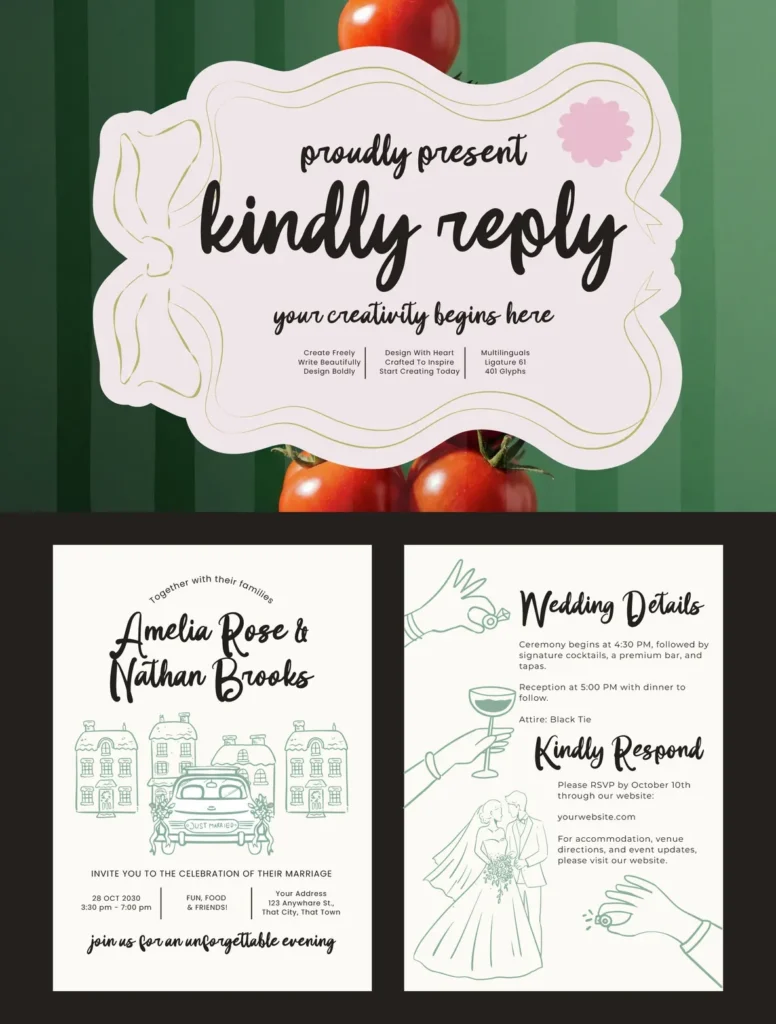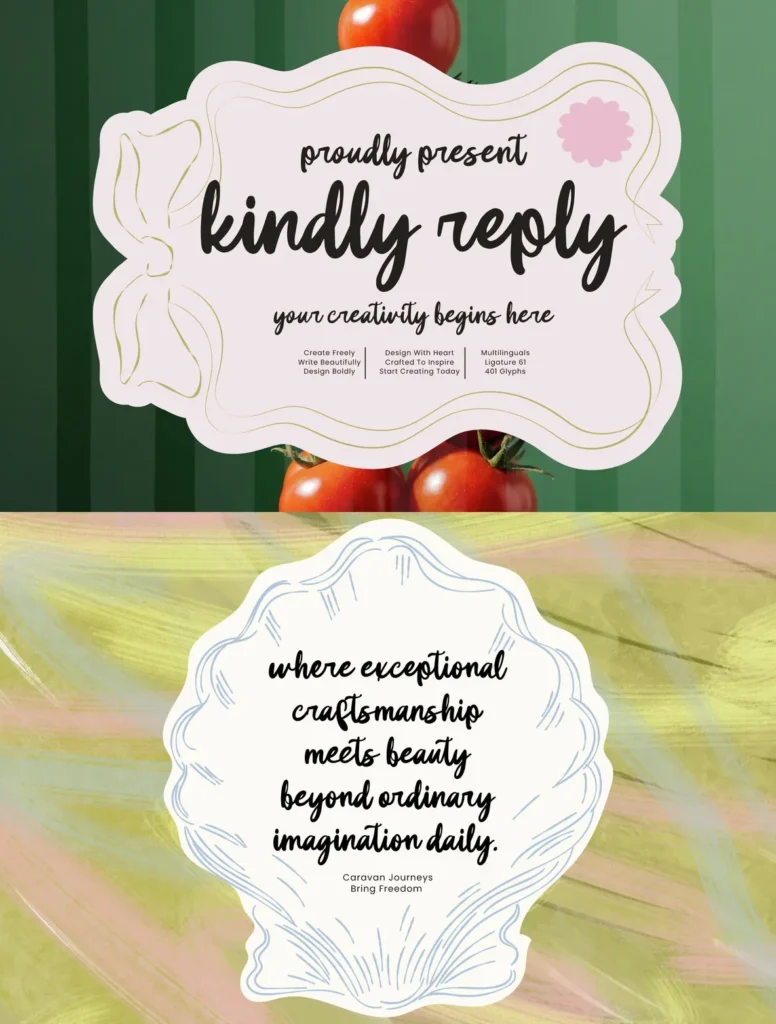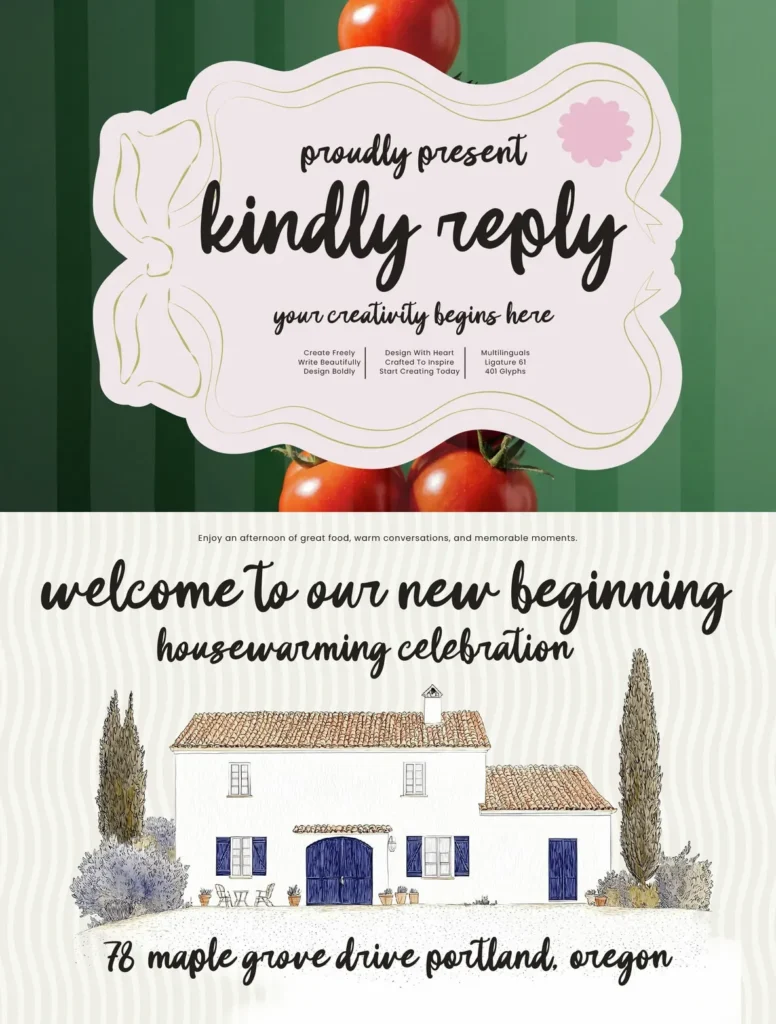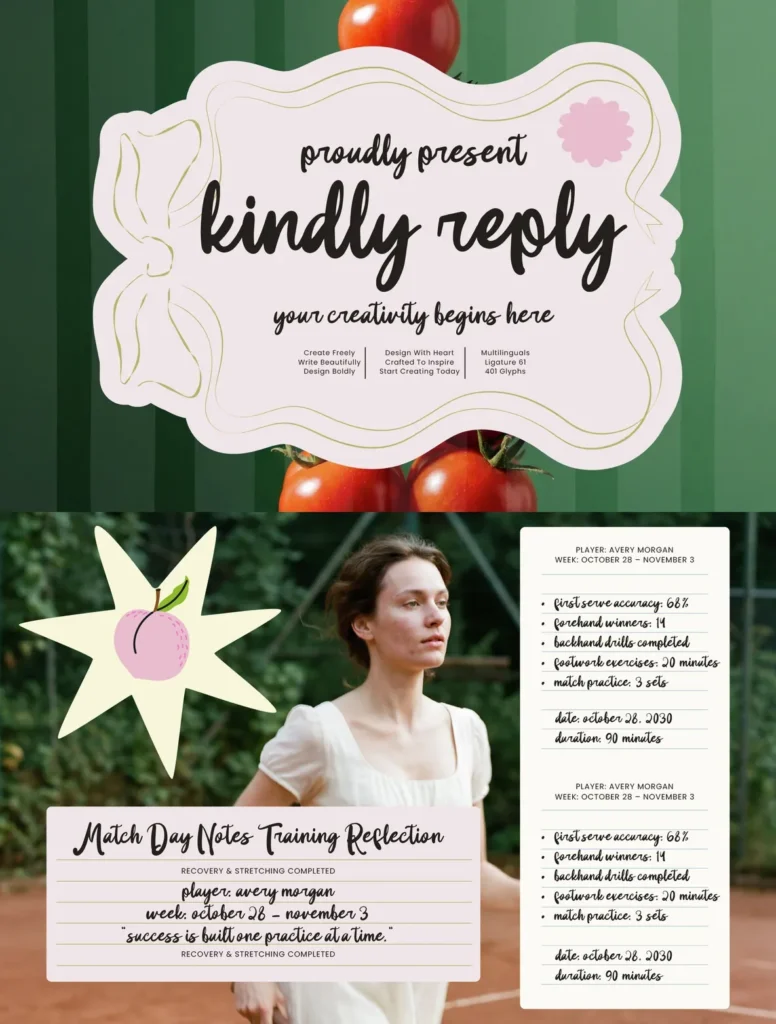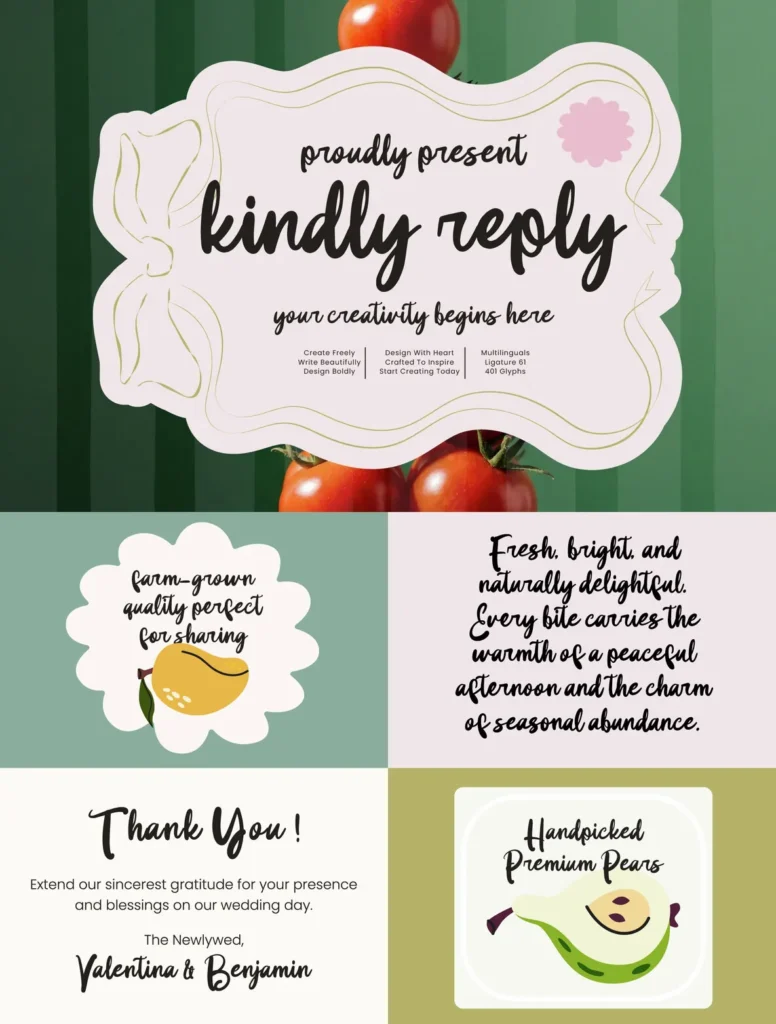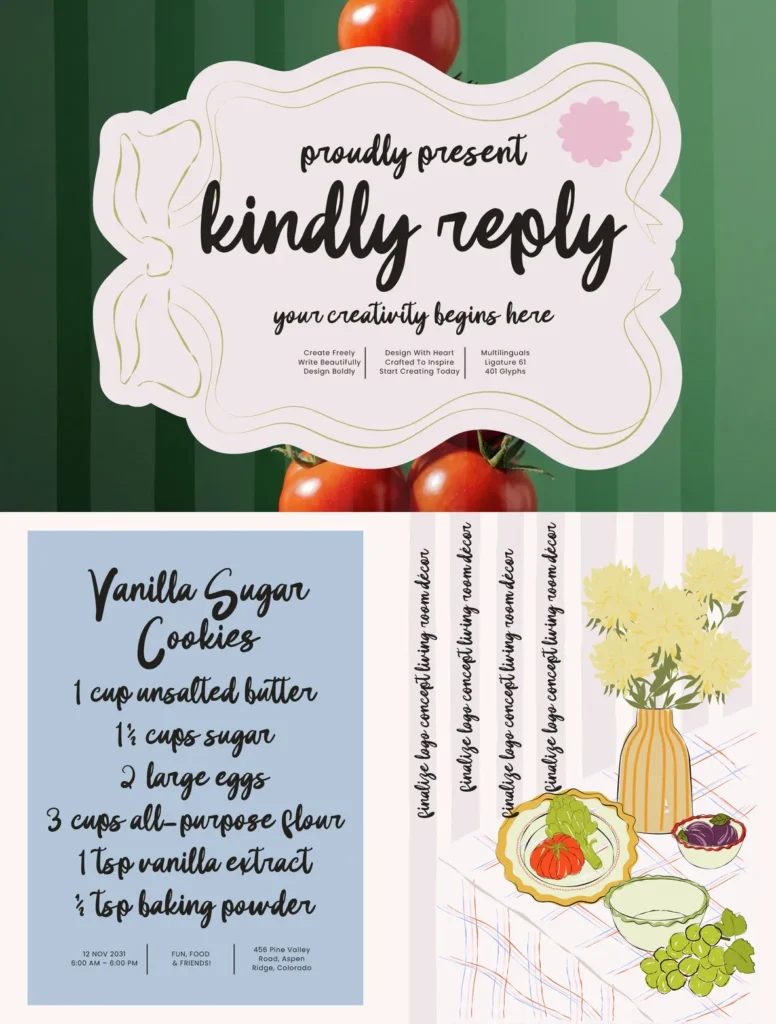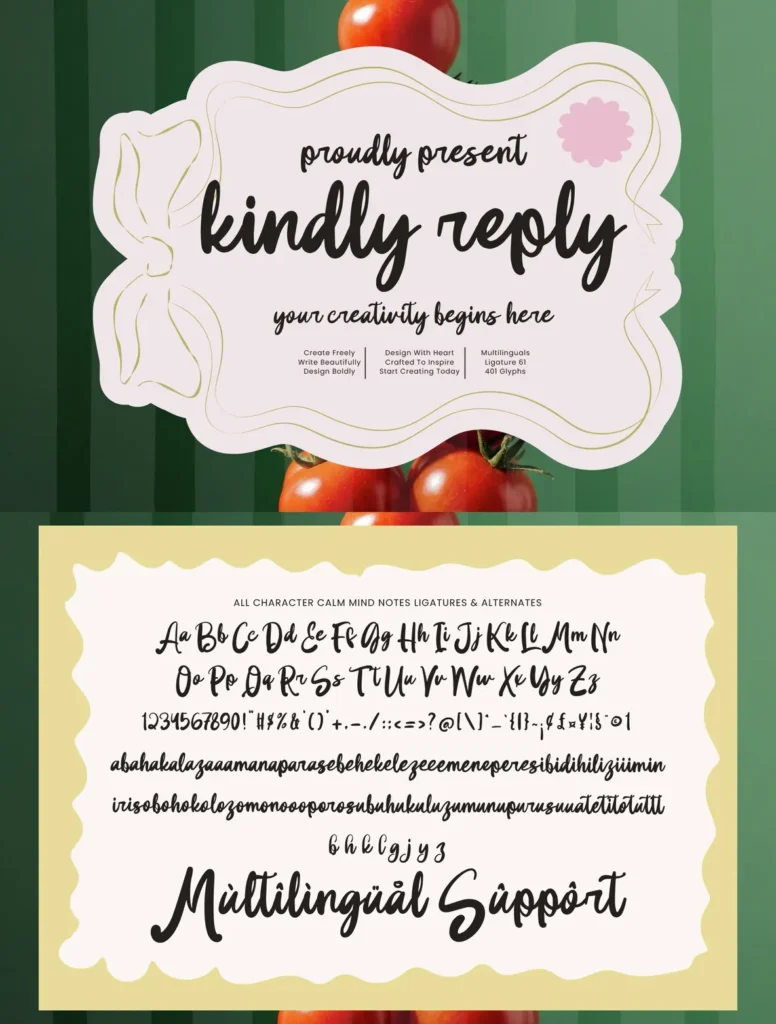
Kindly Reply — Warmth in Every Stroke
Kindly Reply is a whimsical handwritten font made to capture the warmth, charm, and spontaneity of natural handwriting. Its playful strokes, smooth curves, and authentic handwritten personality give design work a friendly, creative touch while keeping the text relaxed and approachable.
Inspired by handwritten notes, wedding stationery, recipe cards, journals, invitations, and lifestyle branding, Kindly Reply pairs organic letterforms with an easy rhythm. Use it to create charming invitations, beautiful stationery, heartfelt branding, and playful typography with a personal, expressive feel.
OpenType Features
61 Ligatures
8 Alternates